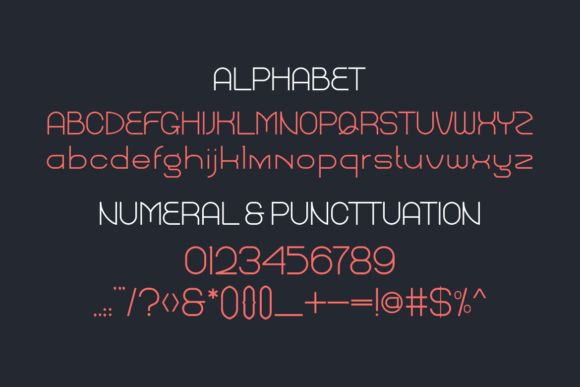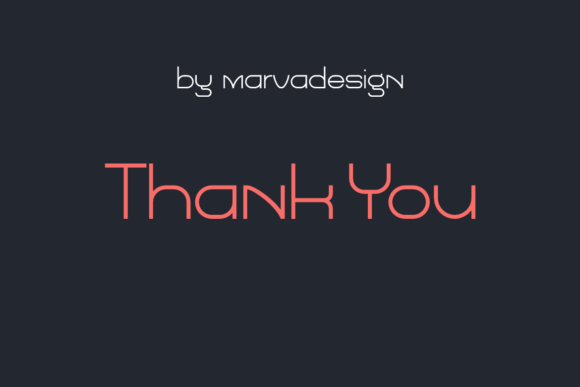
Introducing Anchovie Font: The Modern Sans Serif Display Font for Creative Minds
Are you tired of using the same old fonts in your designs? Look no further! Anchovie Font is here to revolutionize the way you create. This modern sans serif display font is designed to bring a fresh and unique touch to your projects, making it incredibly versatile and adaptable to a wide range of designs.
What Makes Anchovie Font So Special?
Anchovie Font boasts a natural and unique style that sets it apart from other fonts. Its clean lines, subtle curves, and carefully crafted letterforms make it perfect for creating stunning visual effects. Whether you’re working on a logo, branding, packaging, or any other design project, Anchovie Font is sure to make a lasting impression.
The beauty of Anchovie Font lies in its versatility. Its modern sans serif design makes it suitable for a vast array of projects, from:
- Logos and branding: Create a bold and eye-catching logo that showcases your brand’s personality.
- Packaging design: Add a touch of sophistication to your product packaging with Anchovie Font.
- Advertising: Make your ads stand out with a font that’s both modern and attention-grabbing.
- Digital media: Use Anchovie Font in your social media graphics, website headers, and more to create a cohesive brand image.
Why Choose Anchovie Font?
Here are just a few reasons why designers and crafters love Anchovie Font:
- Unique style: Anchovie Font’s distinctive design ensures your projects will stand out from the crowd.
- High versatility: Use Anchovie Font in a wide range of designs, from minimalist to bold and elaborate.
- Ease of use: Anchovie Font is easy to read and works well in various sizes, making it perfect for both print and digital applications.
- Imagination is the limit: With Anchovie Font, the possibilities are endless – let your creativity shine!
Tips for Using Anchovie Font Effectively
To get the most out of Anchovie Font, here are some expert tips:
- Experiment with sizes: Anchovie Font looks great in various sizes, so don’t be afraid to try it out in different scales.
- Play with colors: Anchovie Font works well with a range of colors, from bold and bright to subtle and muted.
- Mix and match: Combine Anchovie Font with other fonts to create a unique and visually appealing design.
Anchovie Font is a game-changing modern sans serif display font that’s perfect for designers and crafters looking to add a touch of uniqueness to their projects. With its natural and unique style, versatility, and endless design possibilities, Anchovie Font is sure to become a staple in your design toolkit. So why wait? Unlock your creativity and let Anchovie Font take your designs to the next level!